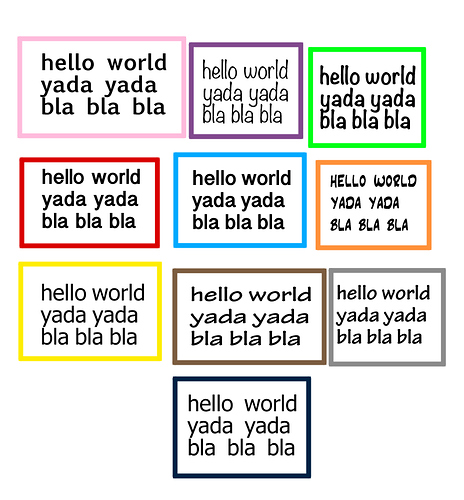
Yes, I was thinking of having an all capital font but didn’t find one I like except the orange one. But....yeah, it looks a bit squeezed. : /
Also, if I remember right, some people don’t like all capital because it looks like shouting. So I’m willing to go with a font that also uses small letters
They are the same font, but one has the bold setting on
I like those two too since they are like an inbetween of computer and handwriting style. I’m just not sure if the bold one looks too cluttered on a smartphone and the normal one too light
Yeah, I feel the same about formal fonts in comics. Sometimes they are appropriate. But often they look....weird ^^”
And I know what you mean about thin fonts. When ‘spirit if the staircase’ started on GoComics, they had a rather thin and difficult to read font that caused a lot of backlash (despite the comic itself being really good). I’d like to avoid that
First I was like ‘oh yeah, that’s a really good reply’....then I read the later part and now I’m insecure again
But I want to be special
Actually, I’m a bit picky and rather look for something that defines my work (oh gosh, that sounds so cliche xD). But if I cannot get anything I find suitable I might go back to the basics
Thanks for the link. I didn’t think of that for this project because I felt that’s a lot of wirk (and my handwriting is kinda meh....).
But I will keep it in mind....especially when the set up for it is less complicated than I thought it is ^^
Yeah, guess I should’ve put more effort into my selection and apply the fonts to a test panel
In my case the comic will not be too dialogue heavy since it’s planed more as a gag-comedy. However, assuming it is well received, I do have a more serious storythread weaving in once in a while (which probably has bigger blocks of dialogue). So I kinda look for something suitable for both, cutsey short lines and serious long dialogues ^^
Your font is really pretty, btw. I will check out the one you mentioned in the end too.
I have to check out that Anime one. I guess I overlooked it